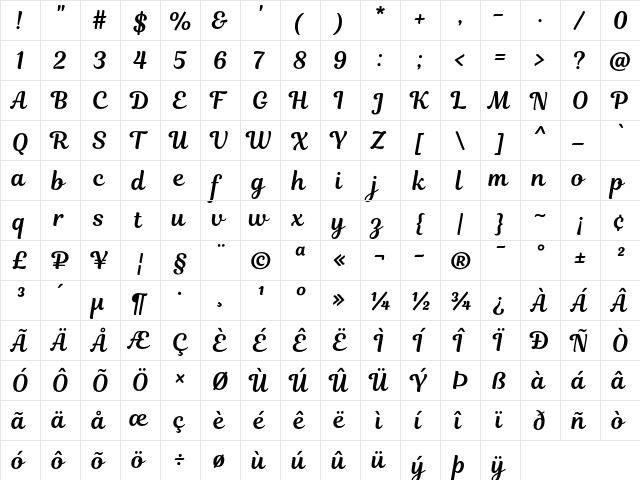
Magnolia Script Regular
| Foundry | Tanya Cherkiz & Jovanny Lemonad |
| Designer | Tanya Cherkiz |
Design Context for Magnolia Script Typeface
Magnolia Script brings a calligraphic fluidity to the page — its connecting strokes and expressive curves give it an unmistakably human quality.
Font Pairing: Combine Magnolia Script with a simple geometric sans for maximum contrast — the tension between flowing curves and clean structure is a classic typographic pairing.
Pro Tip: Pair Magnolia Script with a clean sans-serif for supporting text. The contrast between fluid script and geometric structure creates an elegant typographic hierarchy.